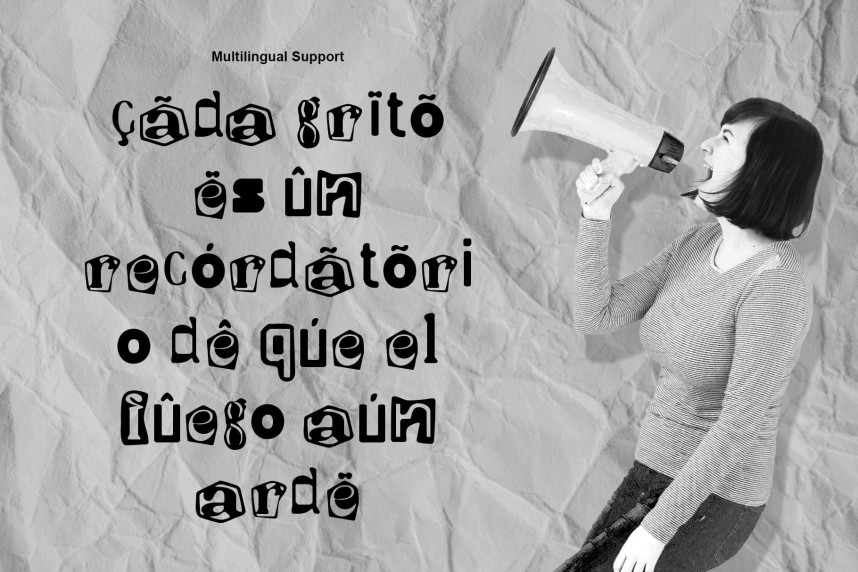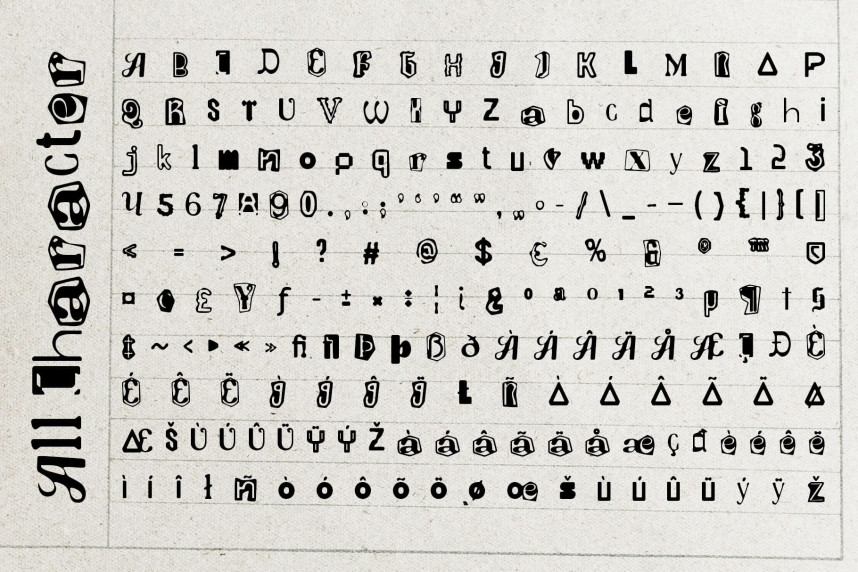
CS Ranger Drawn Font
CS Ranger Drawn Font – this is a ransom display font like collage style that captures the spirit of chaos and rebellion. Its cut-and-paste shapes create a fragmented yet striking rhythm across the page, instantly grabbing attention. Each character feels raw and unrefined, echoing the aesthetic of ransom notes while adding an artistic, hand-drawn edge.
The uneven cuts and mismatched shapes give a sense of unpredictability. Instead of polished precision, the font thrives on disorder, turning irregularity into a design statement. This chaotic construction adds dramatic flair, making it a natural fit for posters, activist campaigns, and designs that demand a rebellious mood.